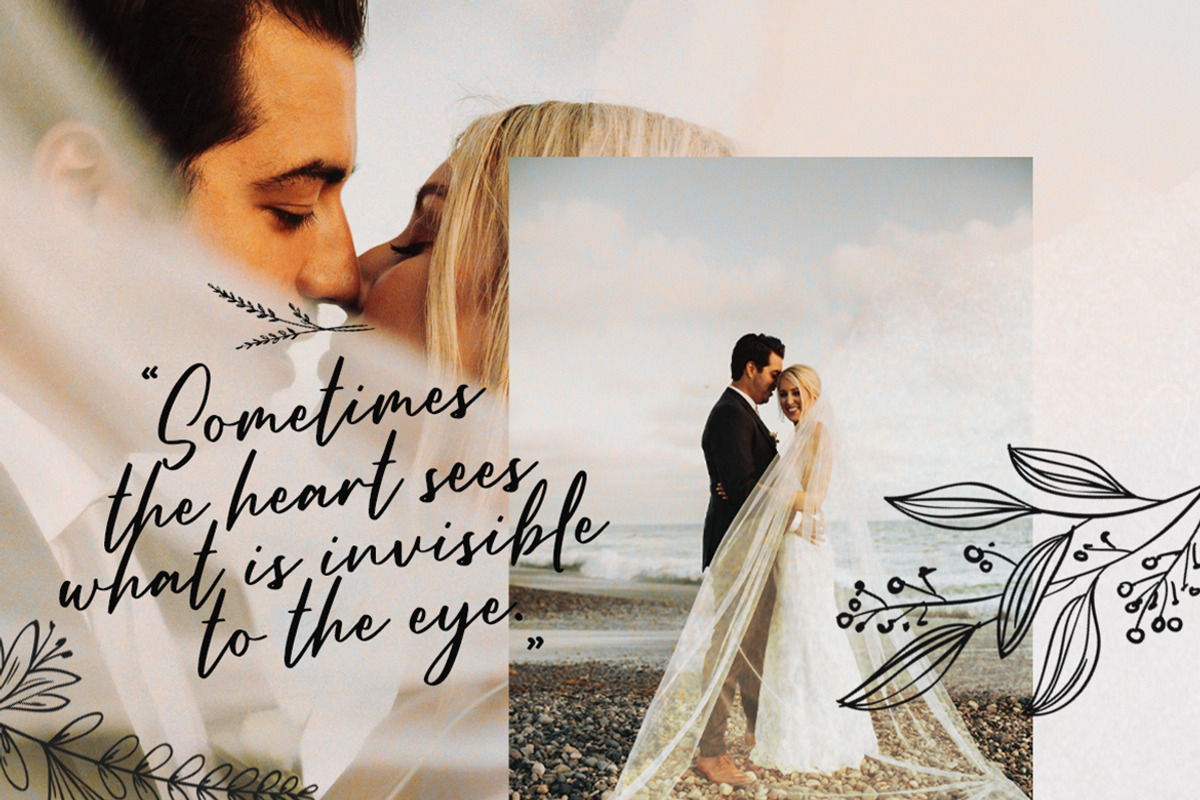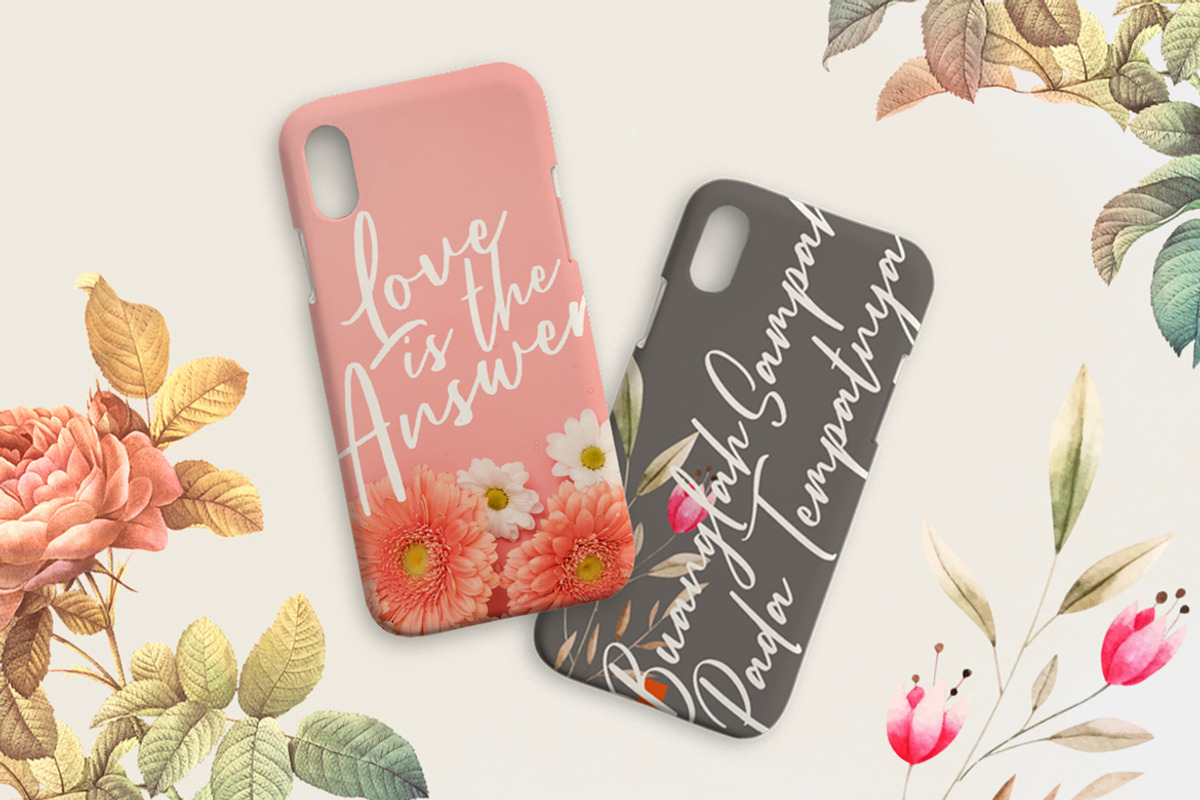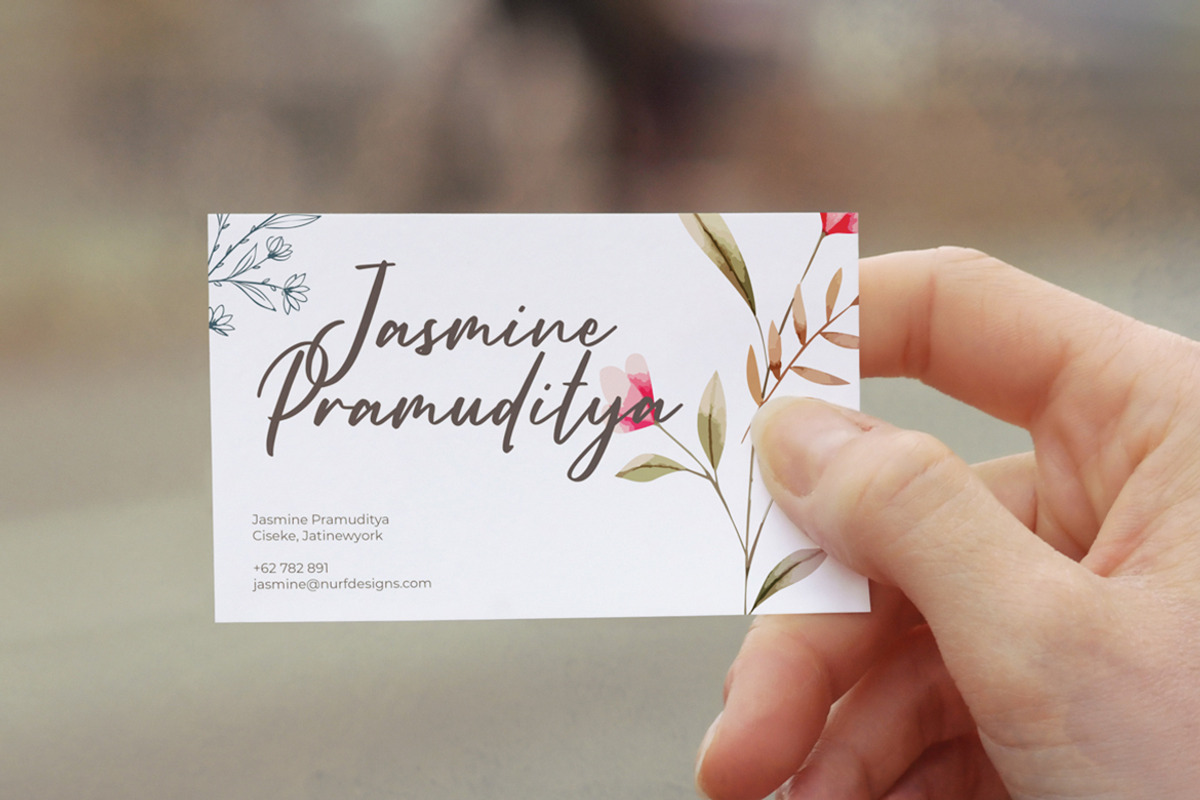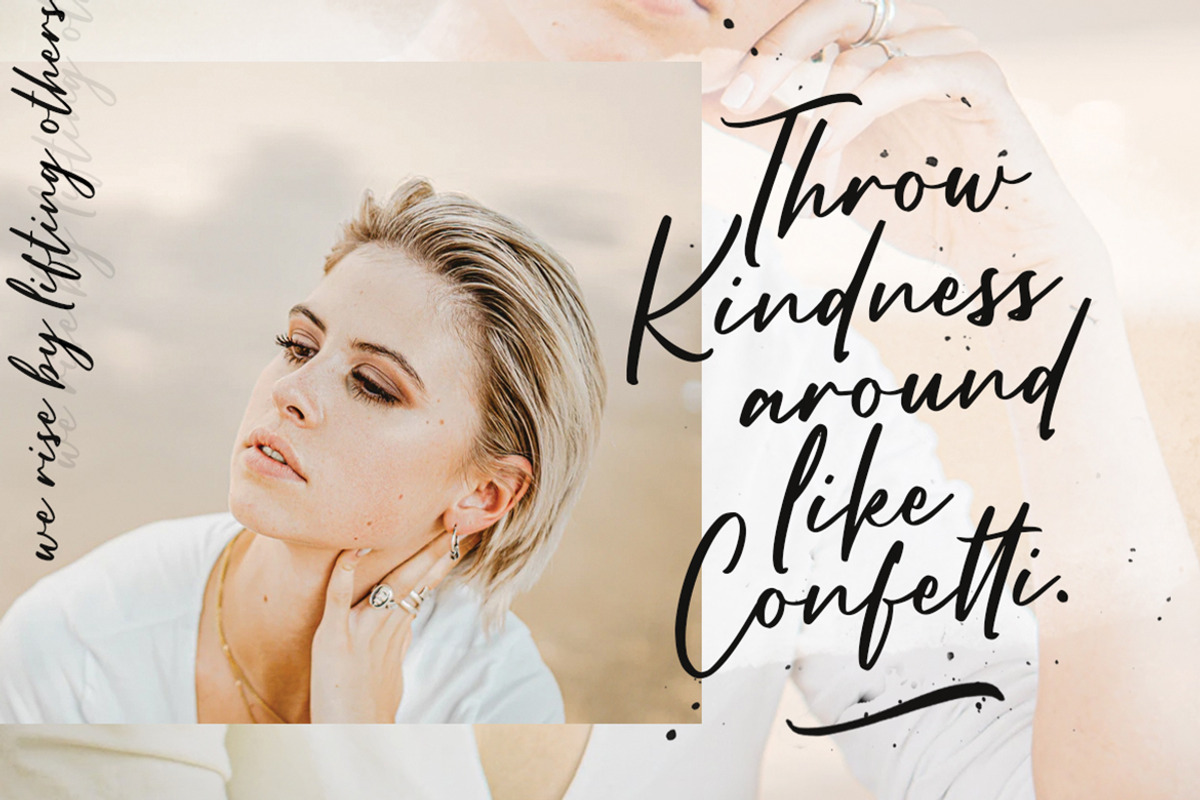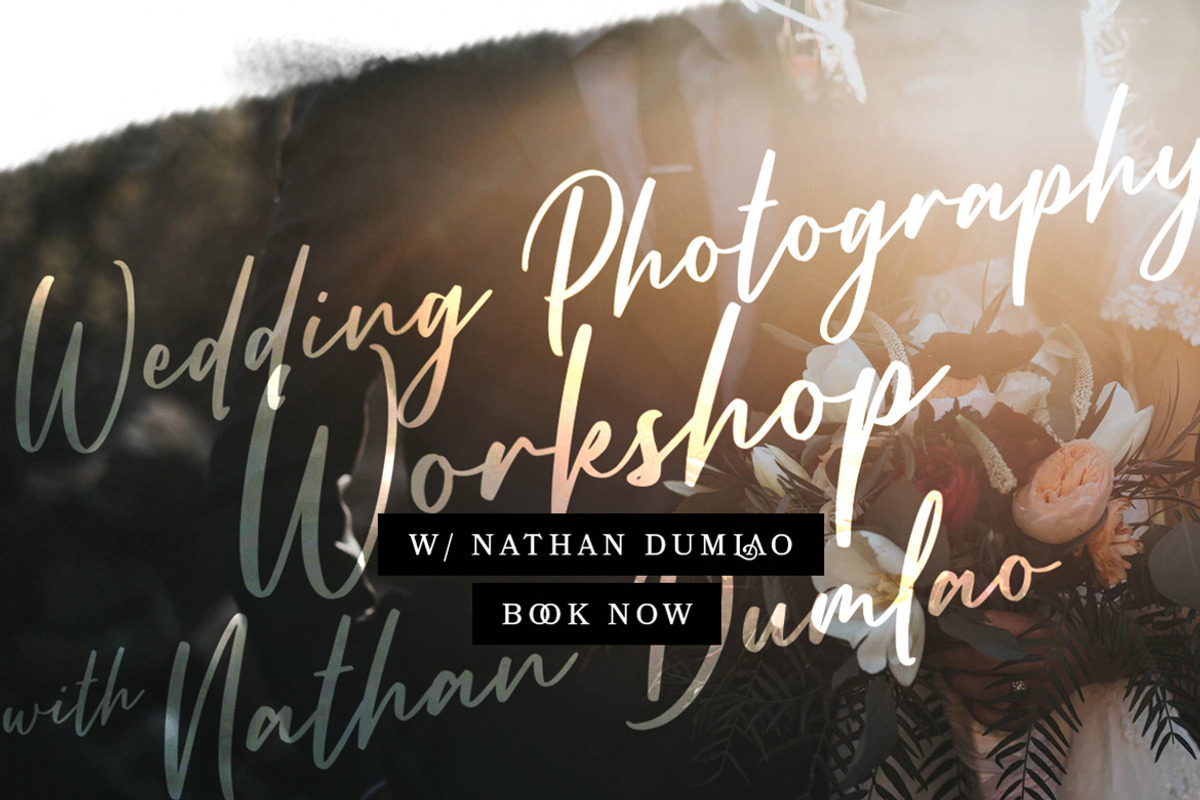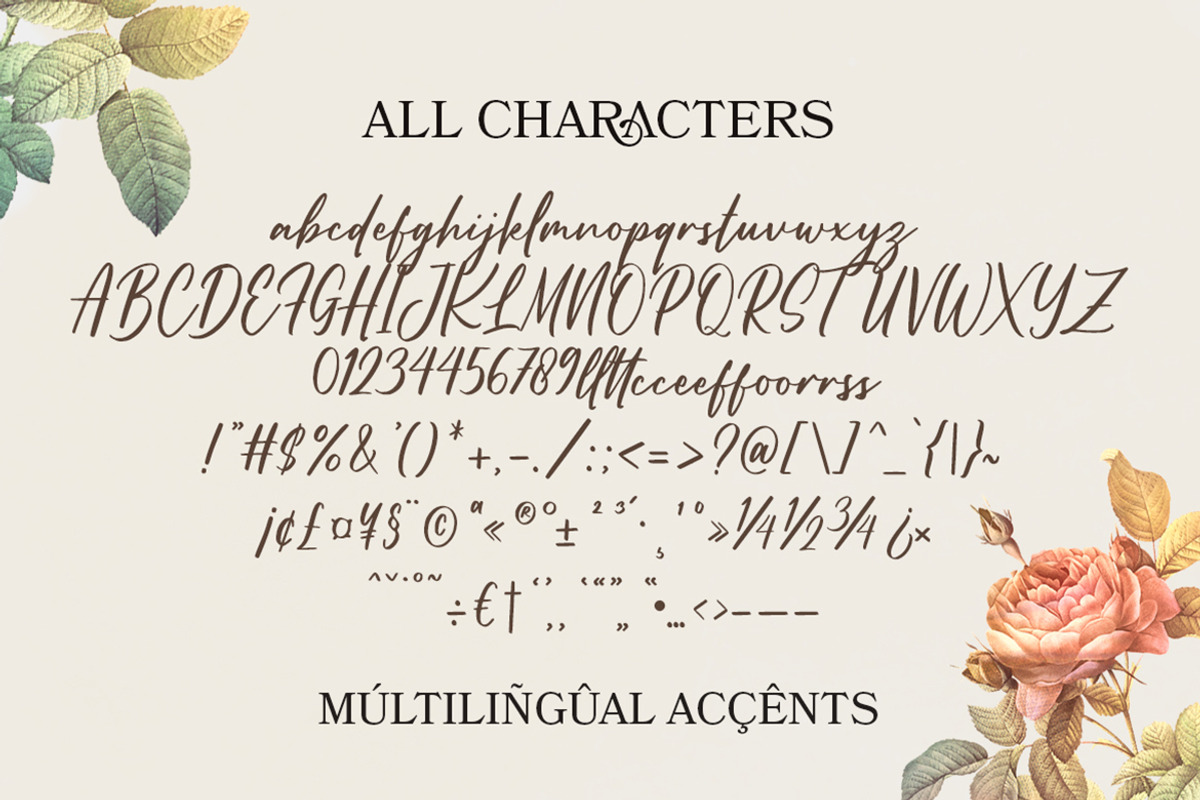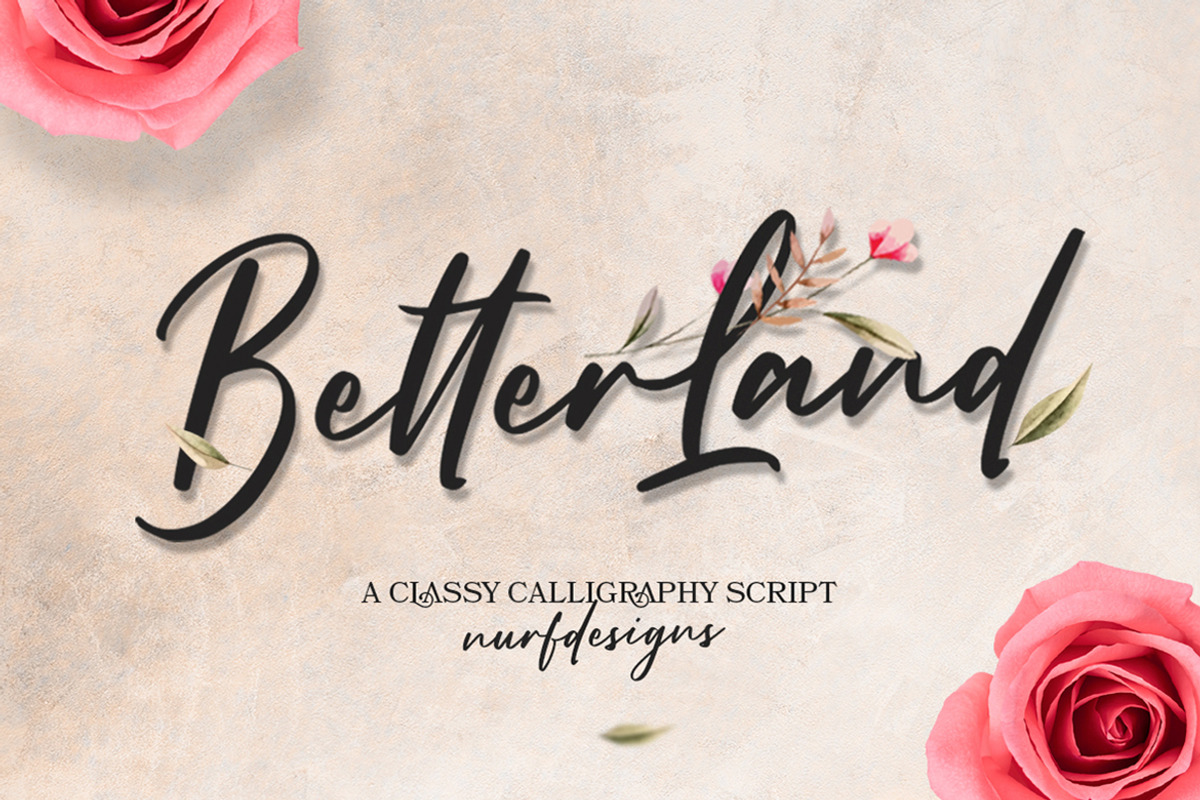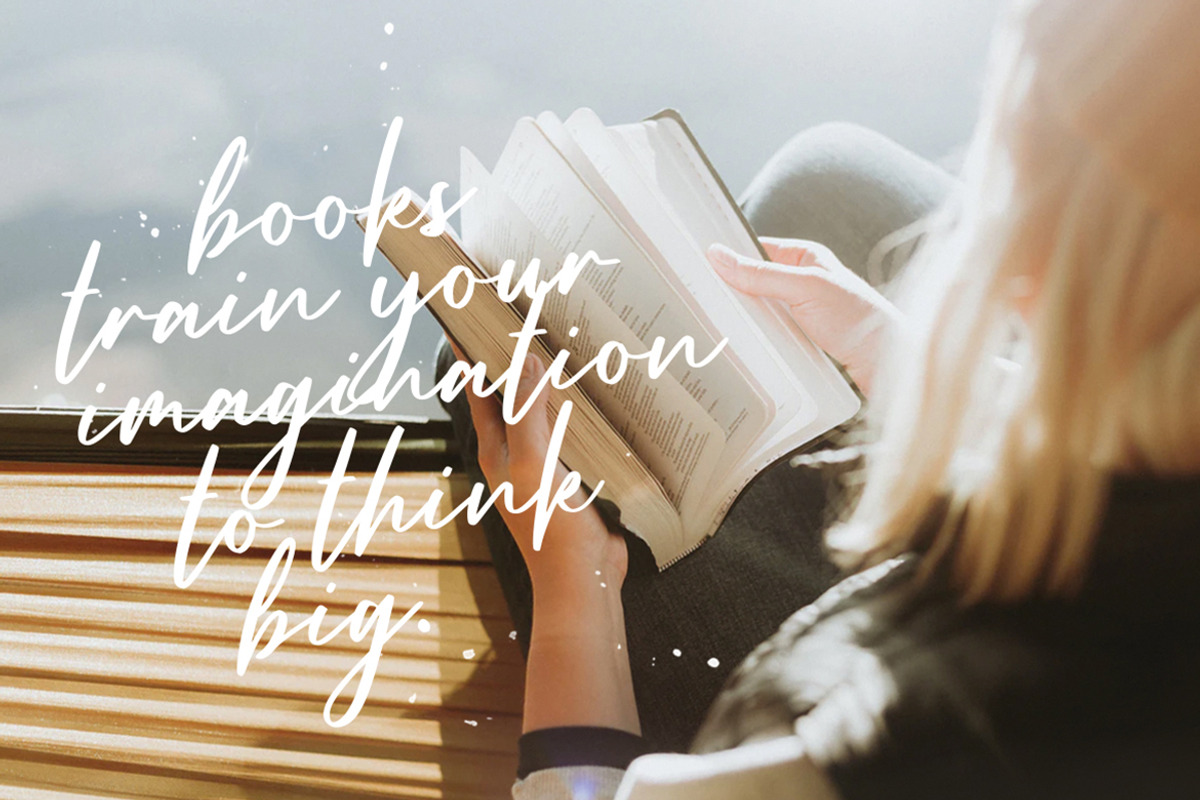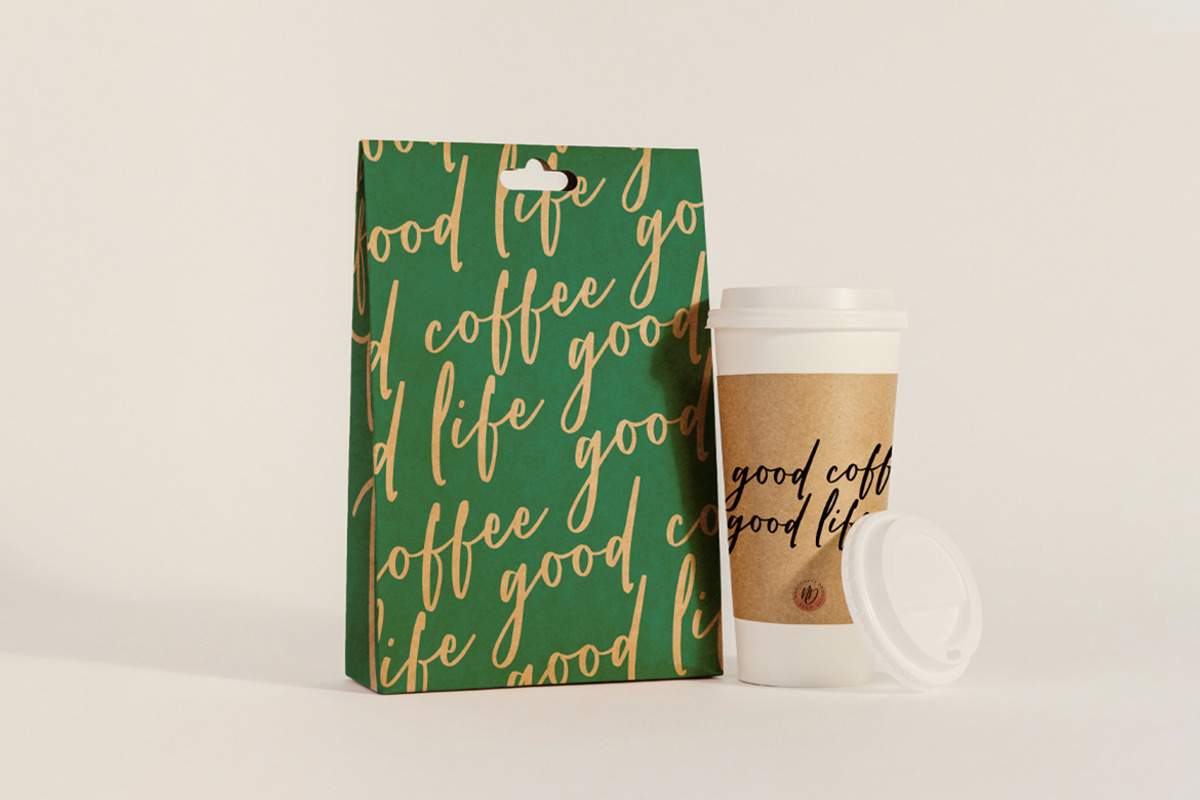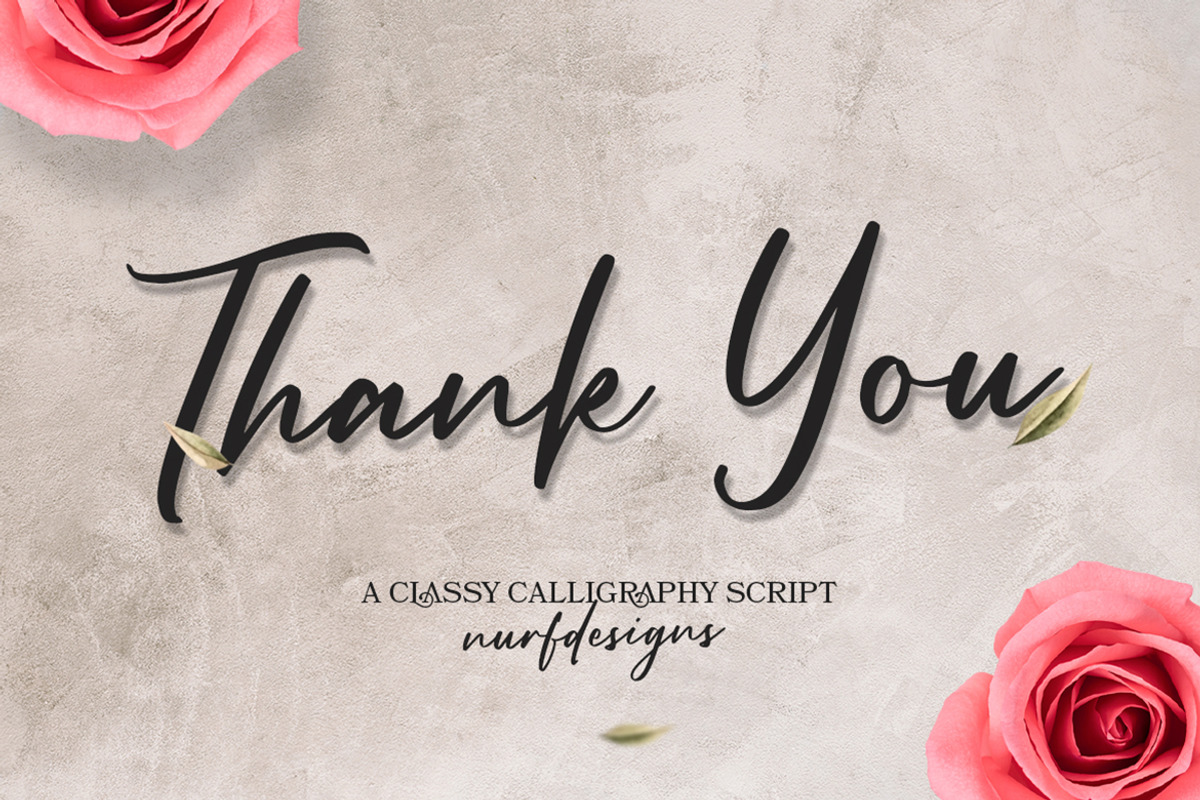
Better Land – Handwritten Font
Better Land is a handwritten font with a classic and retro style. This font is the perfect fit for all of your logos, branding, social media, and crafty DIY projects.